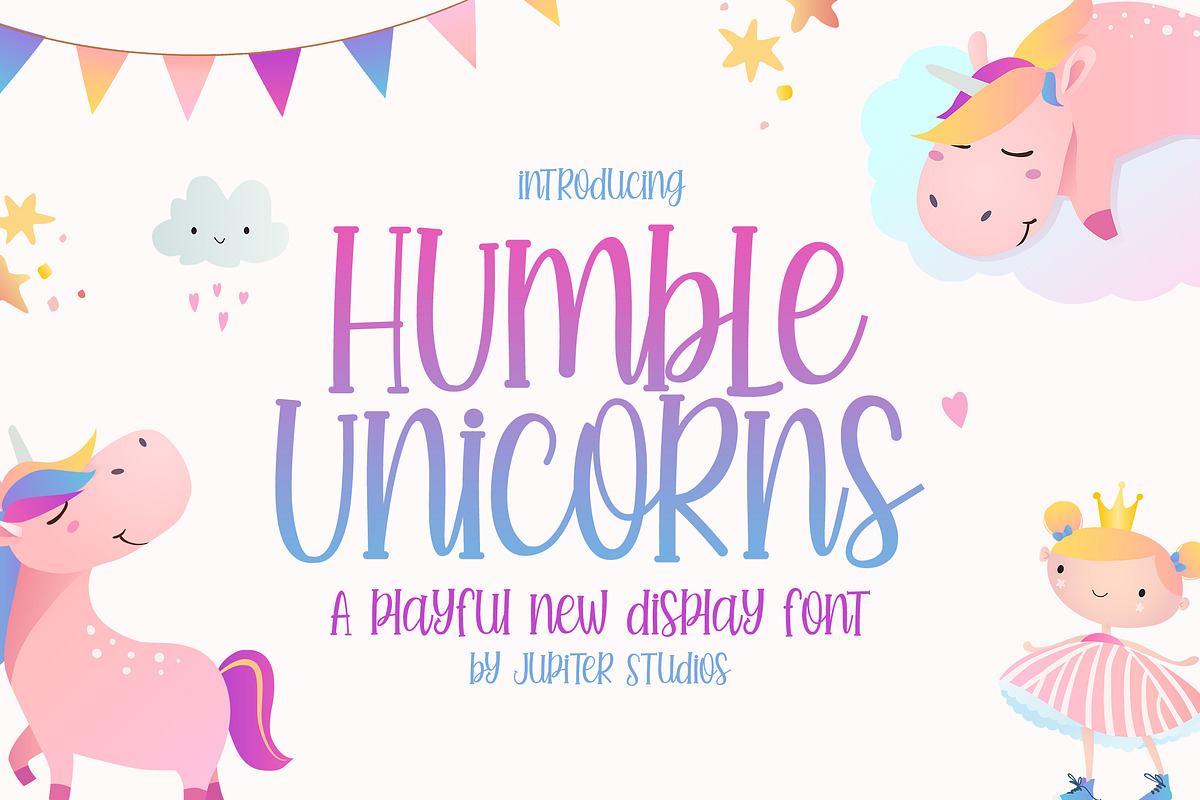
Humble Unicorns Font Free Download is a magical, whimsical typeface full of charm and fantasy. Designed with soft curves and a playful handwritten style, this font is perfect for children’s books, birthday invitations, cute branding, DIY crafts, and anything that needs a sprinkle of imagination.
Its friendly letterforms and joyful vibe make Humble Unicorns an ideal choice for projects that aim to delight. Whether you’re designing for a toy brand, a whimsical product label, or an enchanting social media post, this font brings smiles and sparkles to your work.
It’s easy to use, highly readable, and pairs well with colorful, dreamy visuals.